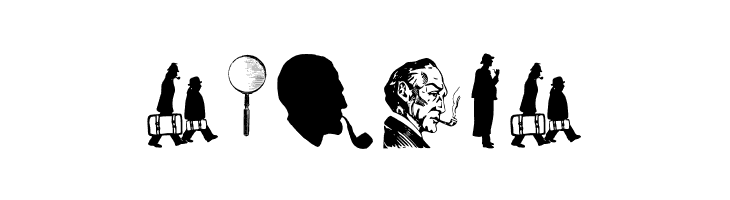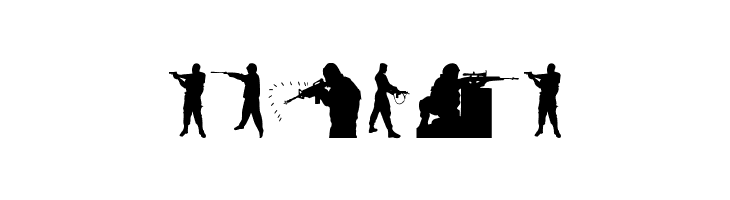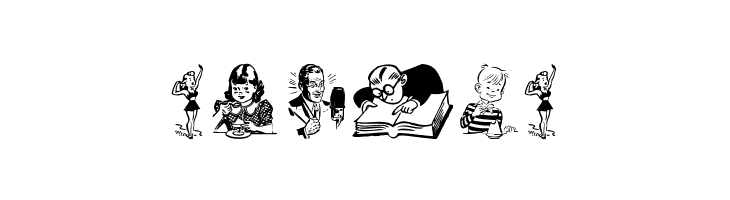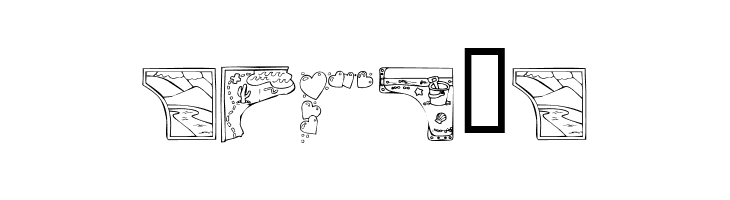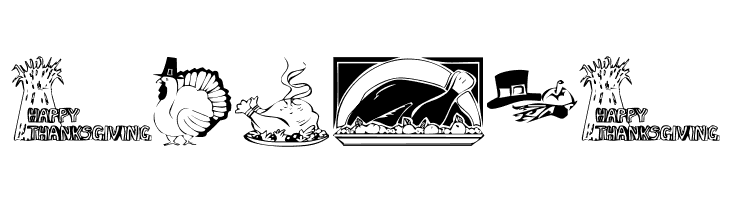
Detective-themed dingbats with vintage silhouettes and illustrations.
Decorative pictogram font with shooter-themed silhouettes.
Retro illustrative dingbat set with vintage comic and advertising motifs.
A collection of St. Patrick's Day themed decorative symbols and illustrations.
A decorative font with drink-themed illustrations, perfect for playful designs.
Intricate decorative corner elements with vintage flair.
A collection of hunting-themed illustrations replacing traditional characters.
A collection of graduation-themed illustrations in a playful, cartoonish style.
A decorative font with Thanksgiving-themed illustrations.